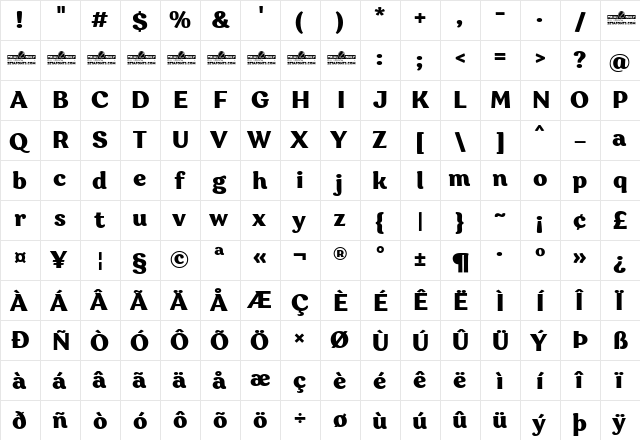
Garbata Trial Extrabold
| Foundry | Zetafonts |
| Designer | Francesco Canovaro, Debora Manetti |
Design Context for Garbata Trial Typeface
Garbata Trial is a composed and adaptable typeface that performs quietly and consistently across a wide range of design contexts. The heavy weight commands attention and anchors typographic hierarchies.